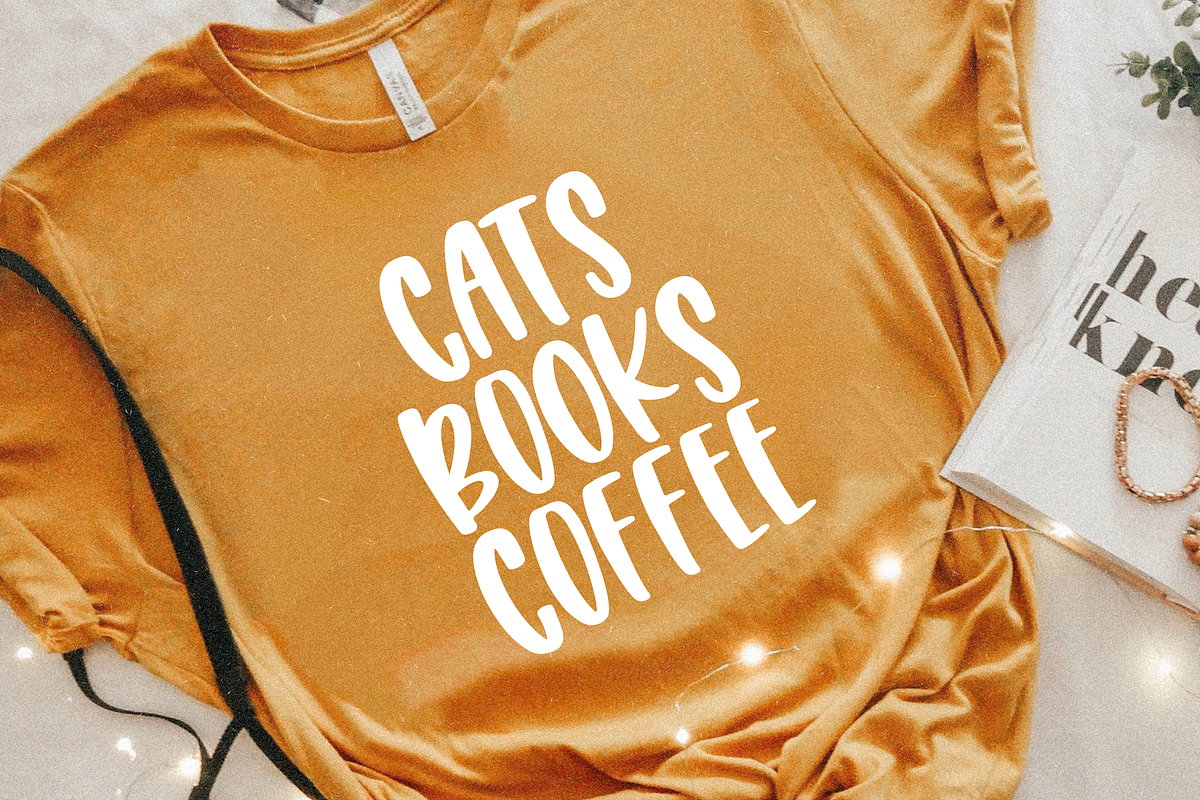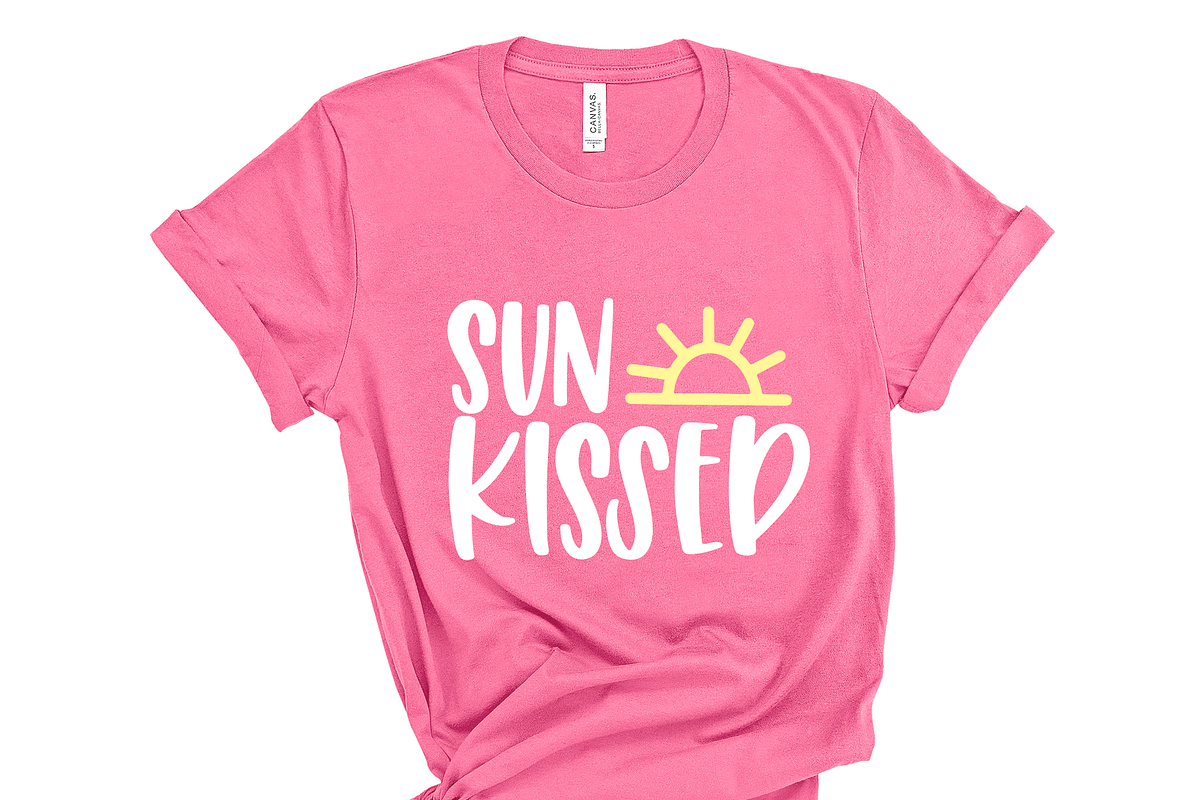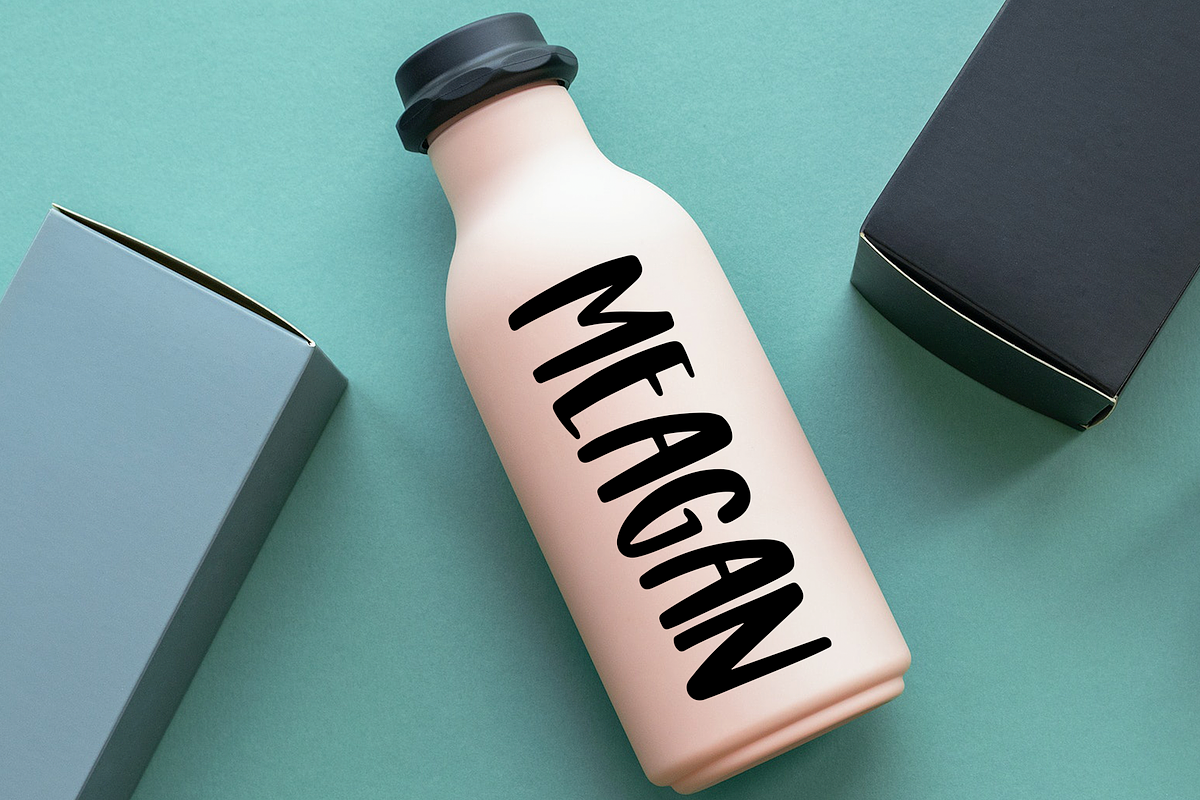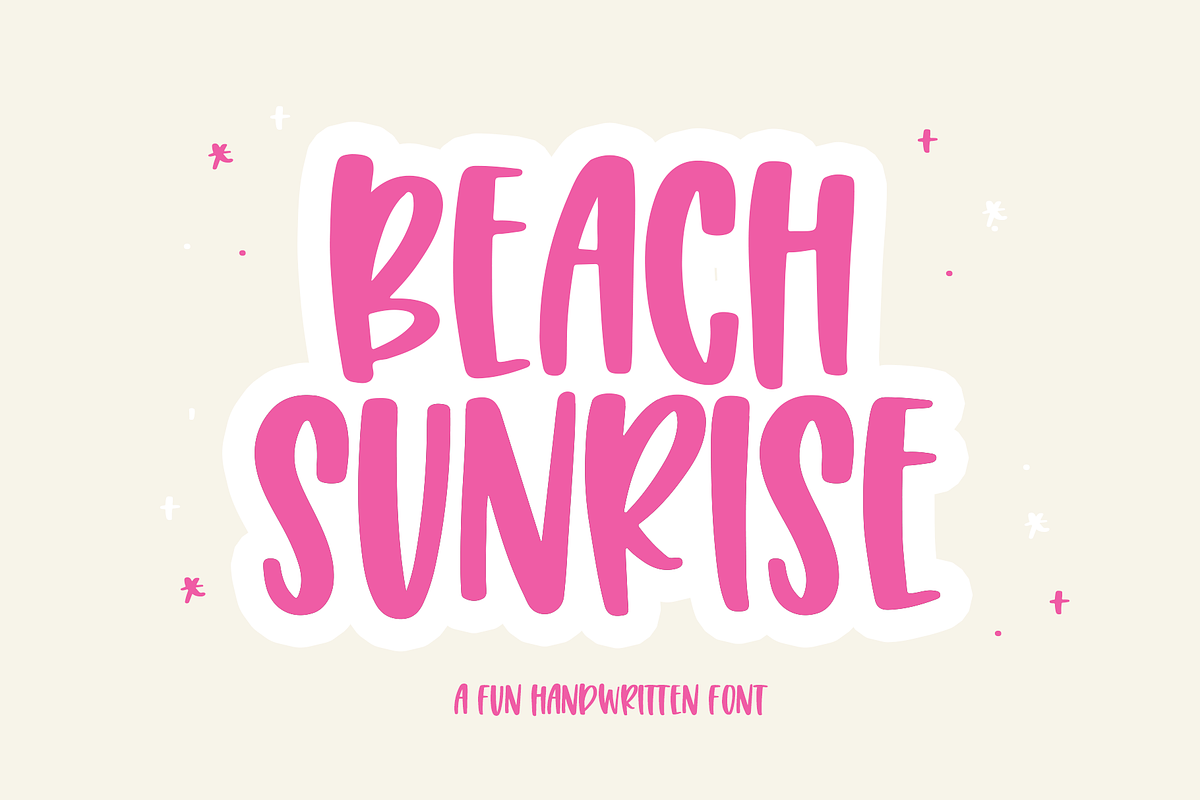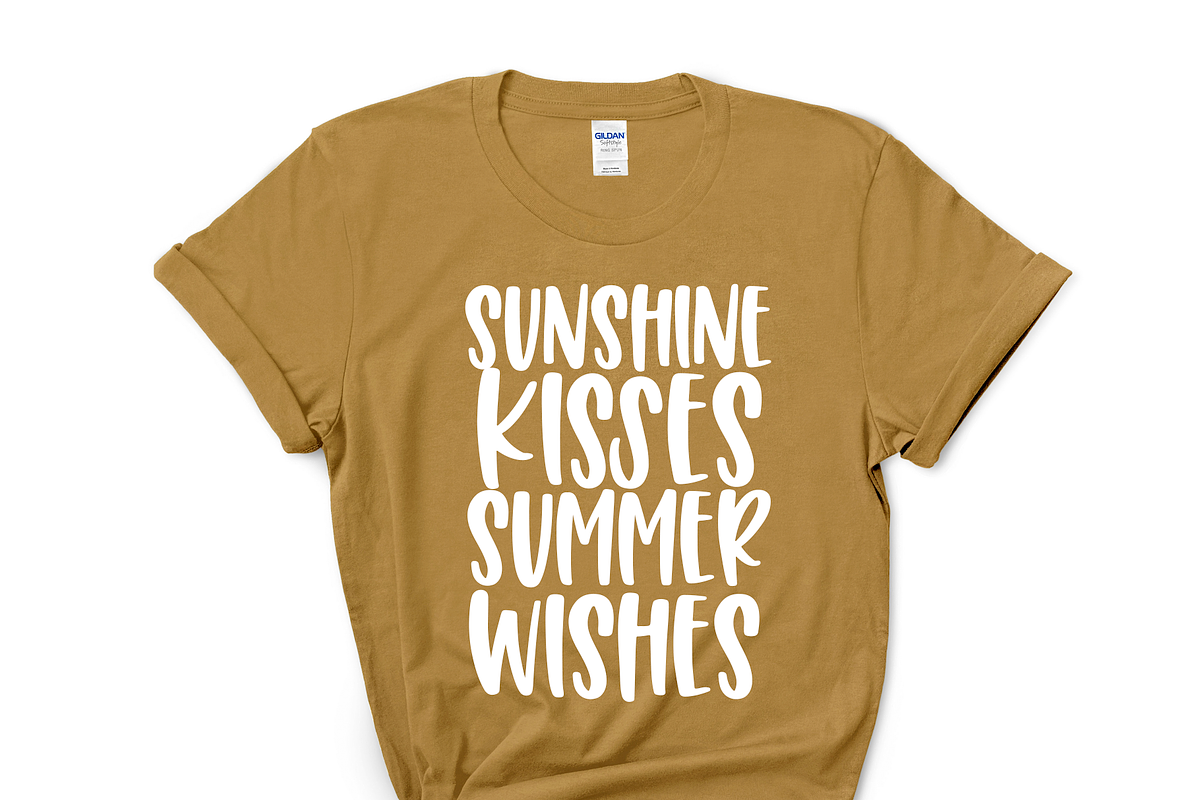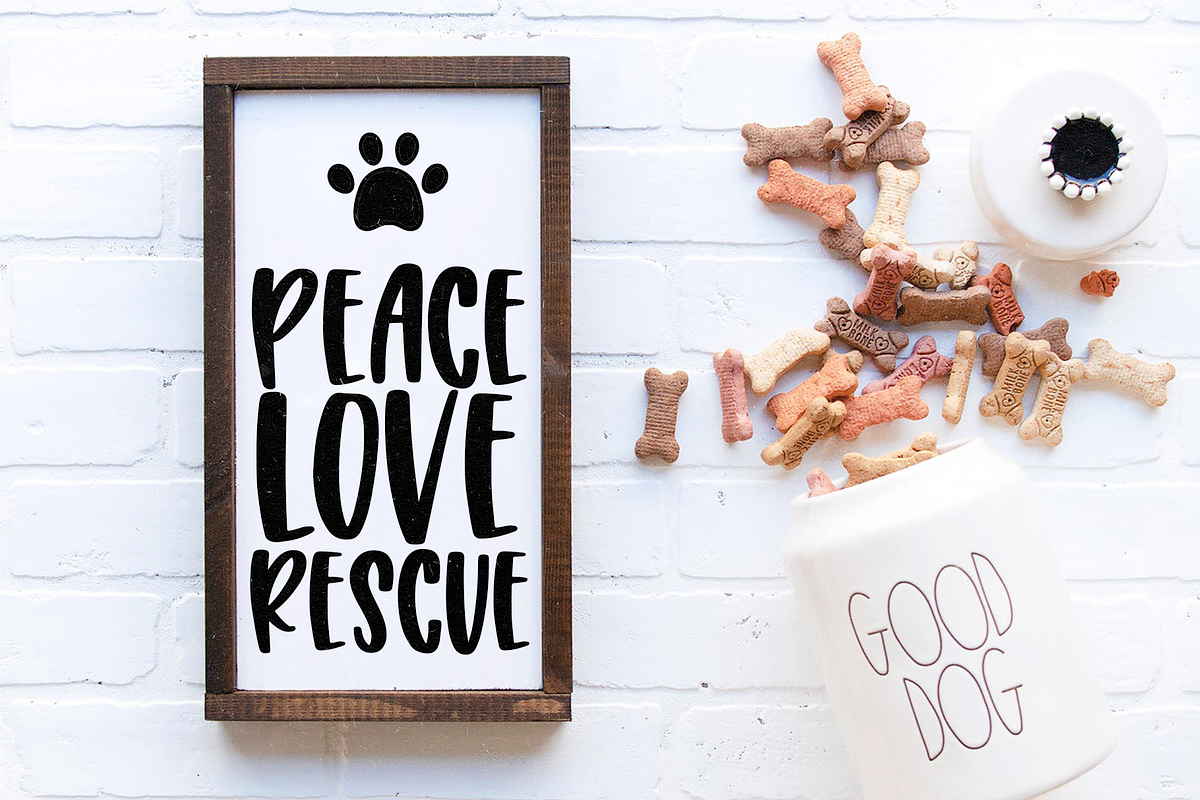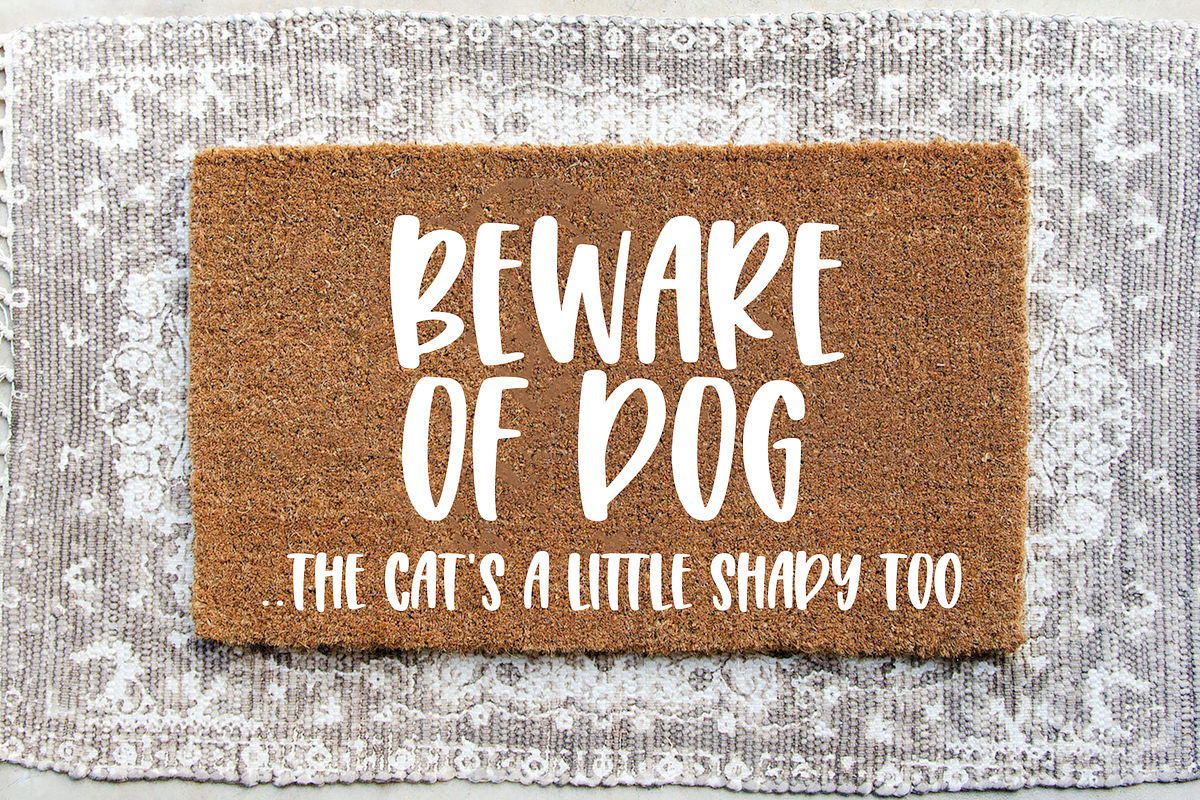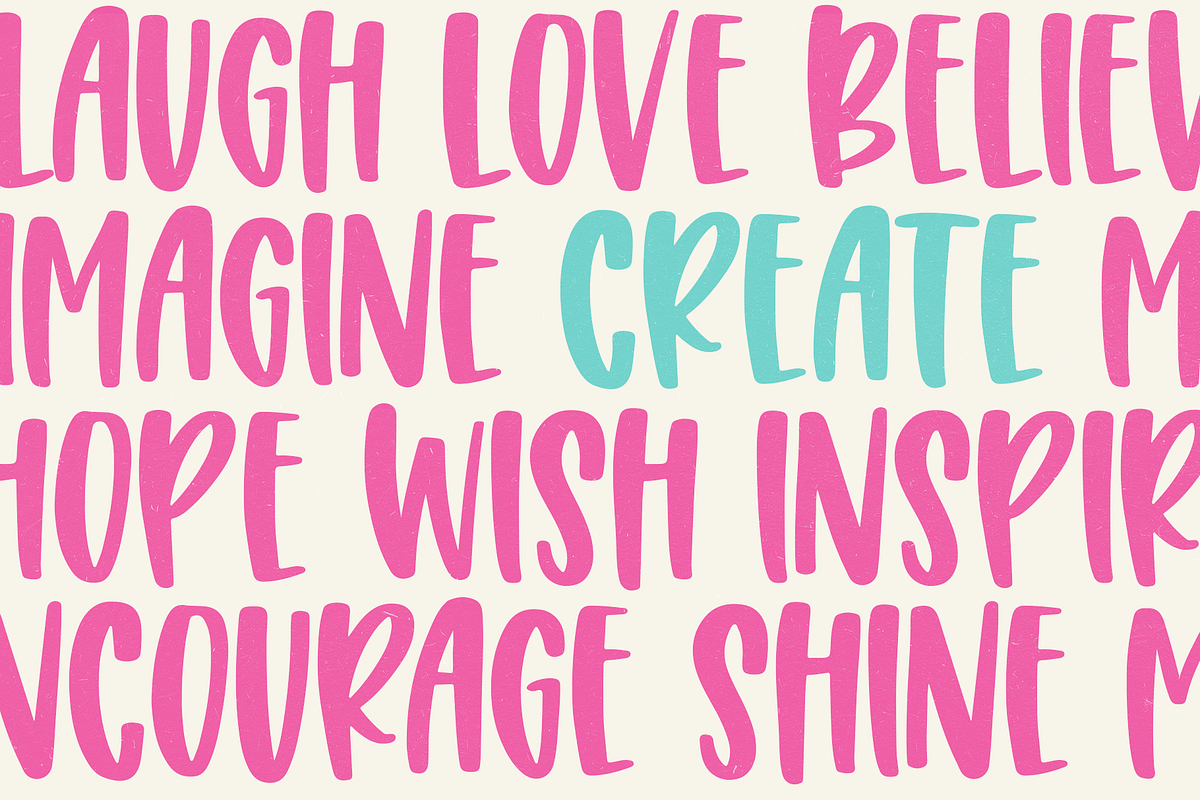
Beach Sunrise | Handwritten Font
Beach Sunrise is a fun handwritten font!
This font is smooth and bubbly - making it perfect for all of your cricut and crafting projects. Use this font for svg designs, shirts, mugs, logos, branding, decor and more!